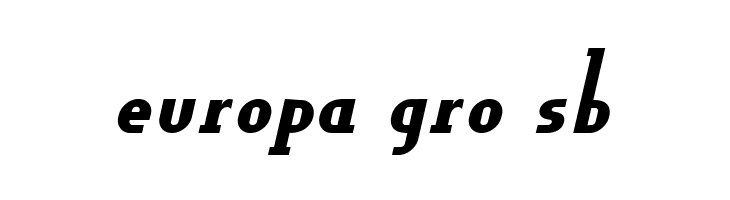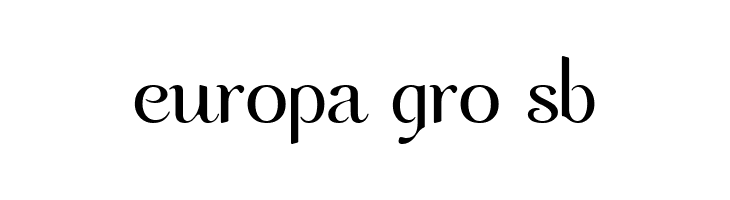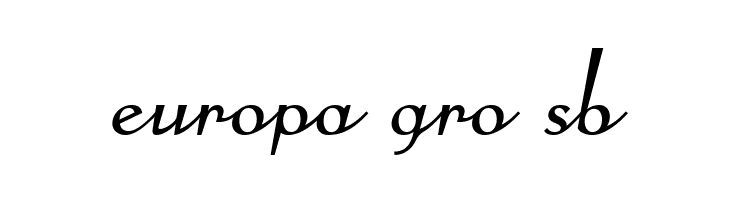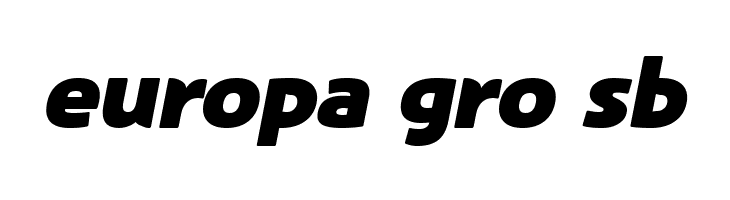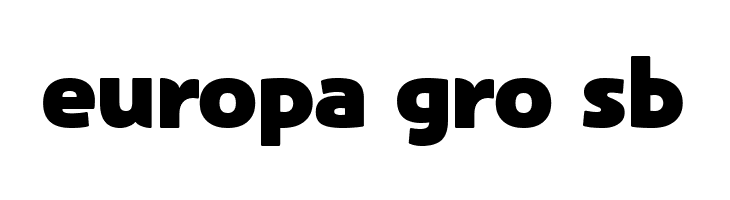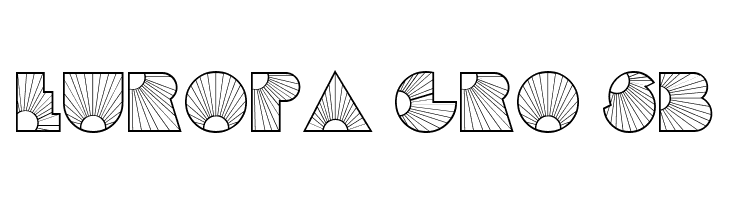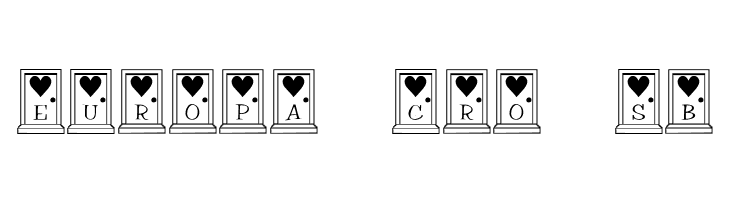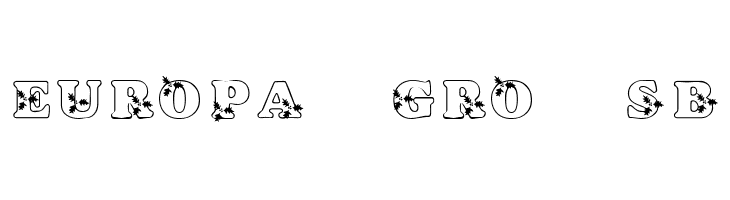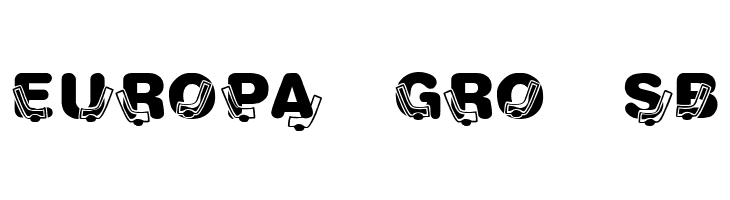
A bold, condensed font with strong, consistent strokes and a dynamic style.
A classic serif font with elegant curves and modern touches.
A modern, elegant script font with flowing lines and a dynamic slant.
A bold, rounded, and oblique font with a modern and dynamic style.
A bold, rounded font with a modern and friendly style.
A decorative font with letters framed by windows and topped with heart symbols.
A decorative font featuring holly leaf motifs for a festive, seasonal look.
A bold, hockey-themed decorative font with sporty elements.
A playful, golf-themed decorative font with flagpole accents.